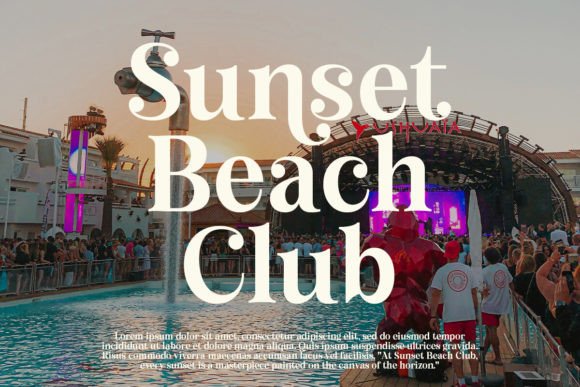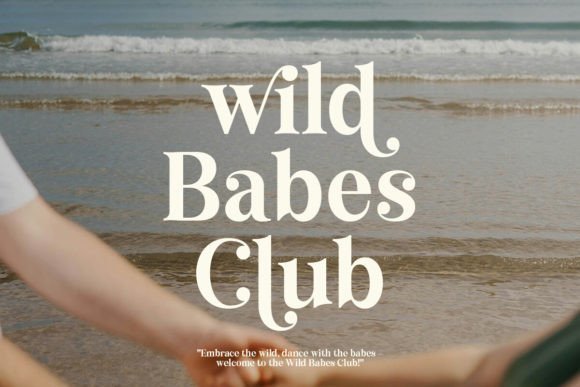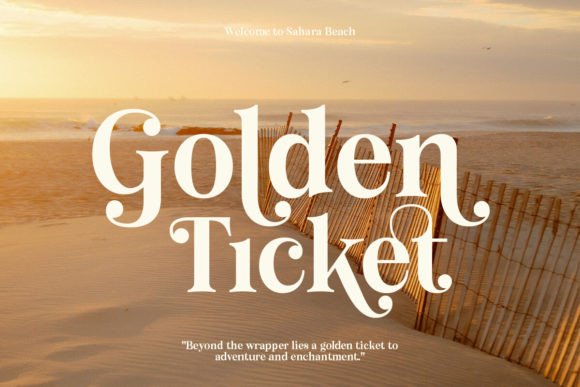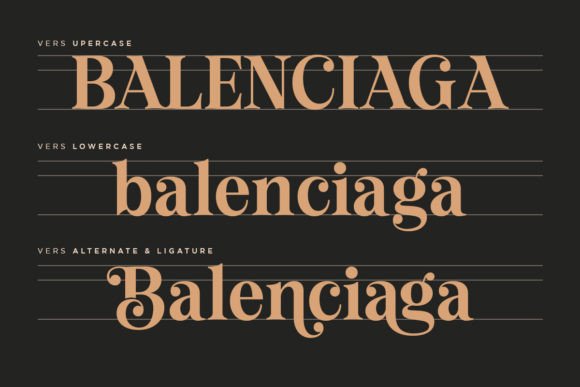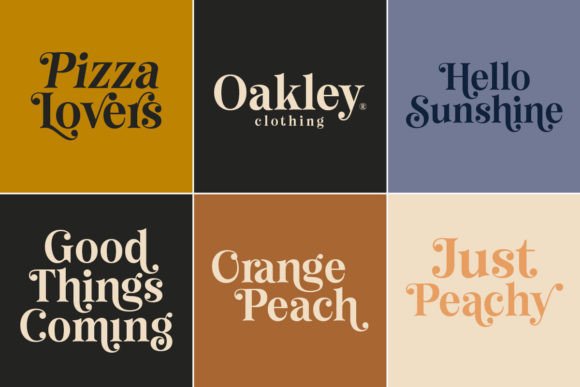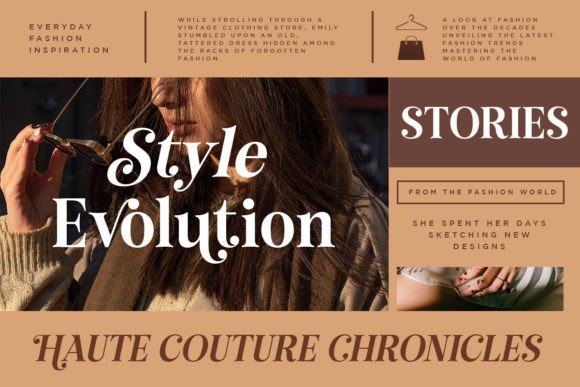
Introduction to Nomadic Dreams Font
Have you ever stared at a blank page, surrounded by endless possibilities, and felt the rush of excitement as your creative juices start to flow? That’s exactly what happens when you tap into the world of typography, where a single font can transport you to a realm of endless imagination. For designers, finding the perfect font is like discovering a treasure trove of inspiration, and that’s precisely what the Nomadic Dreams Font offers.
With its sleek, well-defined letterforms and thoughtfully designed serifs, the Nomadic Dreams Font is a high-quality design resource that’s perfect for a wide range of creative projects. Whether you’re working on a branding project, crafting an invitation, or creating editorial content, this font is sure to elevate your design narrative. And the best part? It’s a free download, making it accessible to designers of all levels.
Key Features of Nomadic Dreams Font
- Unique, hand-drawn design with a high level of detail, perfect for creative projects.
- Suitable for use in a wide range of design applications, from branding and marketing materials to digital products and publications.
- Includes a comprehensive character set, covering a wide range of languages and alphabets.
Honest Review: Nomadic Dreams Font
As a designer, I’m always on the lookout for high-quality design resources to elevate my creative projects. The Nomadic Dreams Font caught my eye, and I was excited to put it to the test.
First impressions: the font is beautiful, with a unique and exotic feel that’s perfect for travel or adventure-themed designs. The transparent background is a nice touch, allowing me to easily layer the font over images or backgrounds.
- ✨ Unique and exotic design that’s perfect for travel or adventure-themed designs.
- ✨ High-quality design that looks great at various font sizes.
That being said, there are a few limitations to keep in mind:
- ⚠️ The font may not be suitable for body text, as it can be a bit difficult to read at smaller font sizes.
- ⚠️ The font is a bit on the heavier side, so it may not be the best choice for designs where you want a lot of text.
Overall, I’m really impressed with the Nomadic Dreams Font. While it may not be perfect for every project, it’s a great addition to my design resource arsenal, and I’m excited to see how I can use it in future creative projects.
The Nomadic Dreams Font is perfect for various design projects, including:
- Graphic design and visual branding
- Poster and flyer design
- Social media graphics and advertising